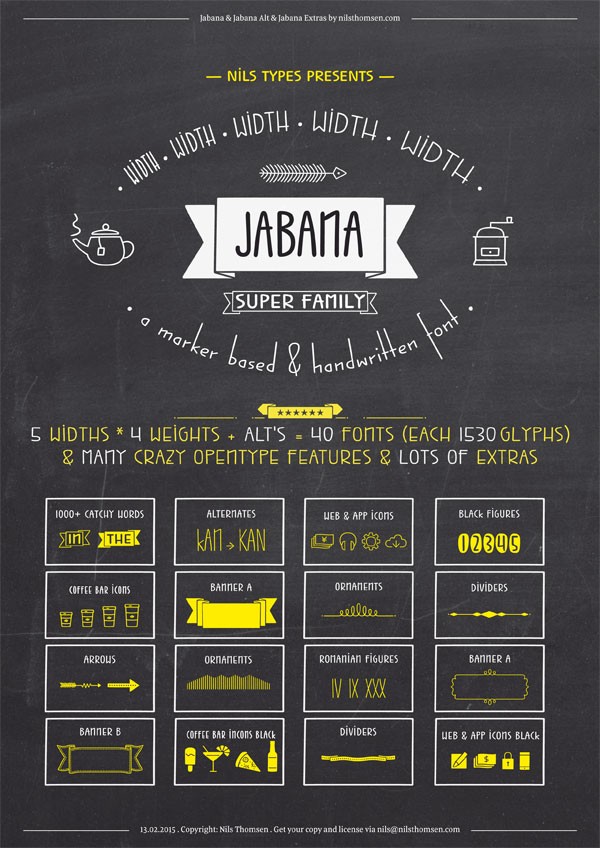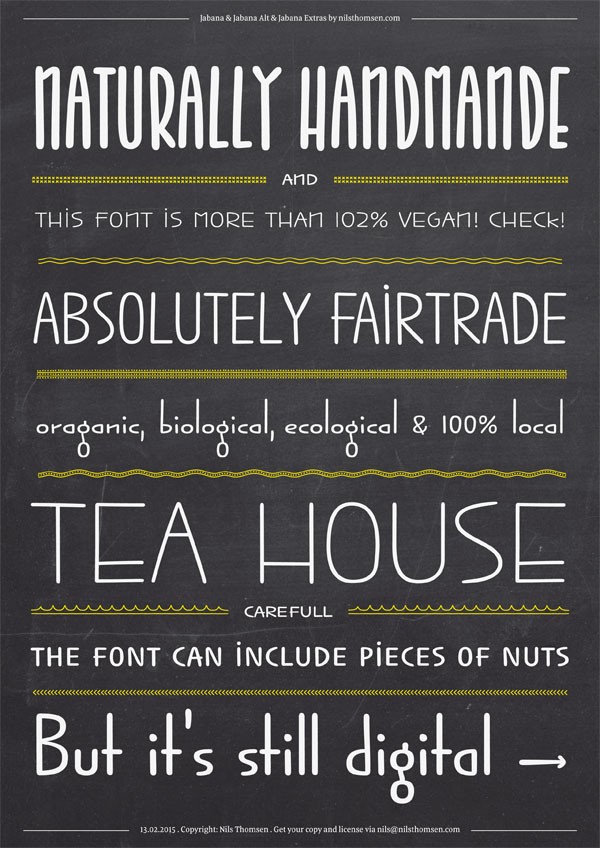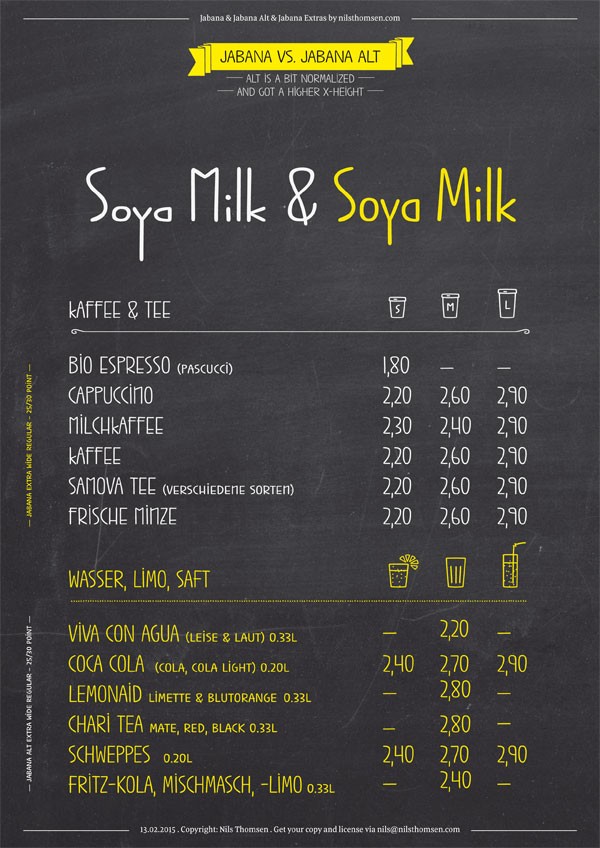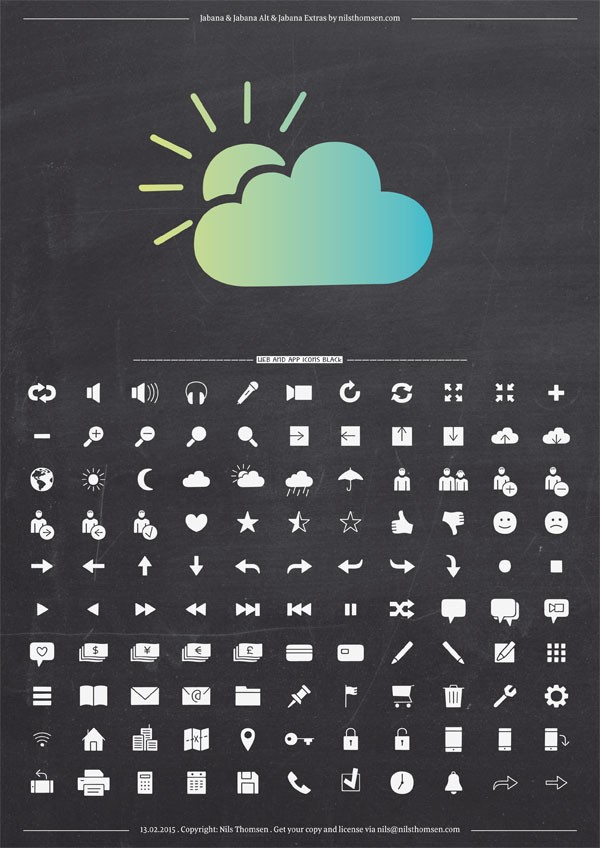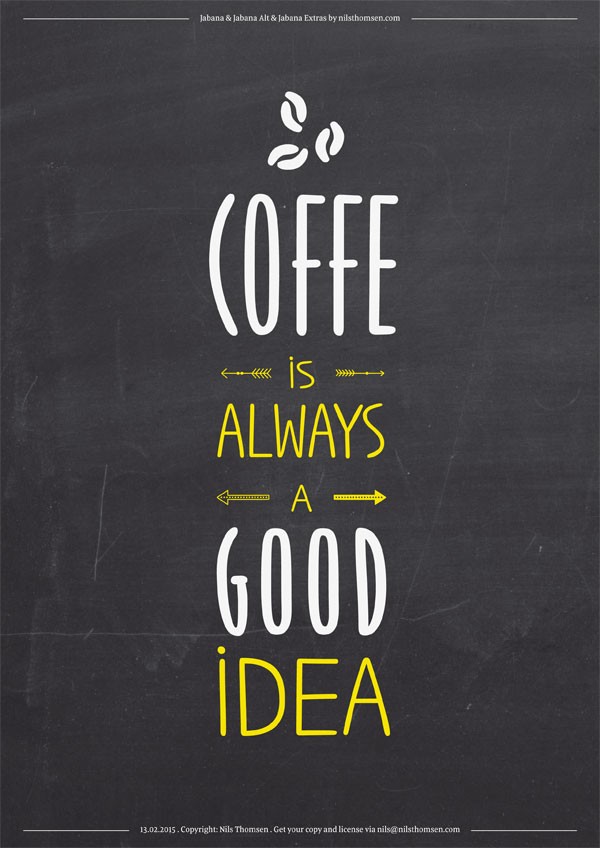
Jabana font, a stylish display type family by Nils Thomsen.
Nils Thomsen is a Hamburg, Germany based freelancer and typeface designer as well as founder of the Nils Types foundry. In 2013, he has created the Jabana font family. This extensive family comes with 5 widths (ranging from super compressed to extended letter shapes) in 4 weights. The Jabana font family provides smooth handwritten marker curves. You can use this display font for invitations, menus or signage – especially for coffee shops. In addition, Jabana is equipped with a wide range of OpenType features, alternates and extras such as numerous icons and arrows.
The whole character set supports all Western European languages. In addition, there is also ‘Jabana Alt’. This alternate type family has standard uppercase proportions and a larger x-height for the lowercase letters. But that’s not all! With ‘Jabana Extras’ you can get awesome specials such as arrows, banners, lines, ornaments, and web or coffee icons.